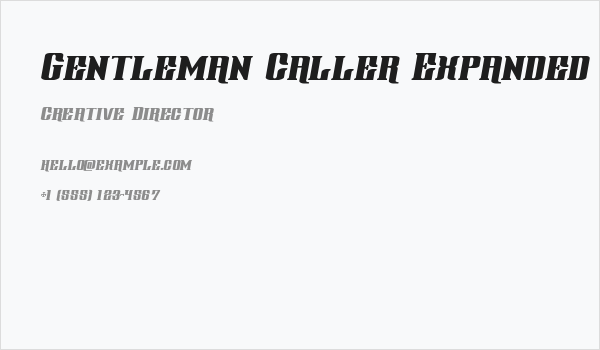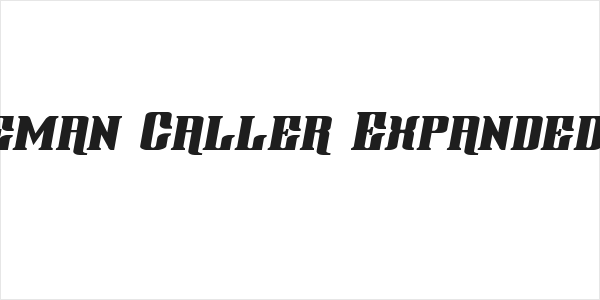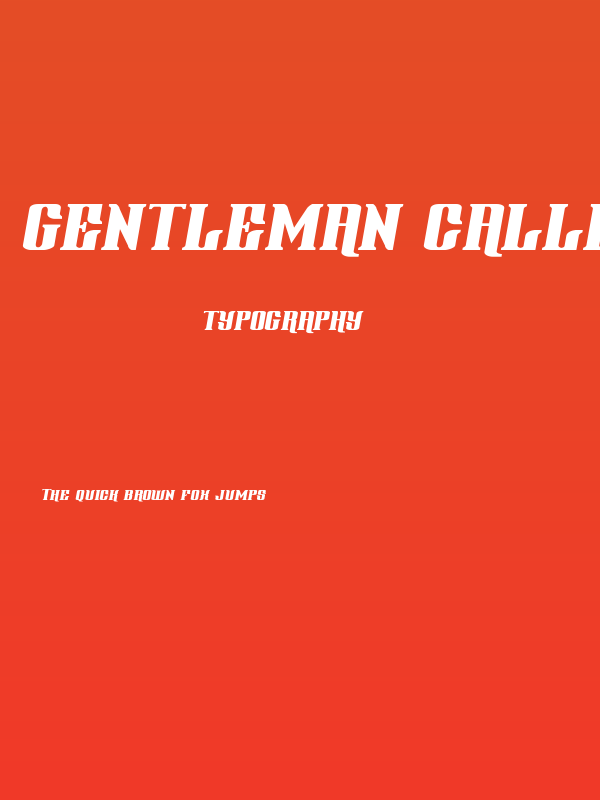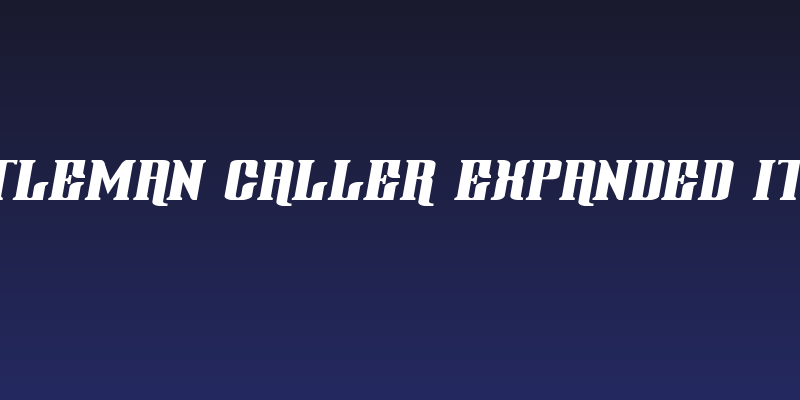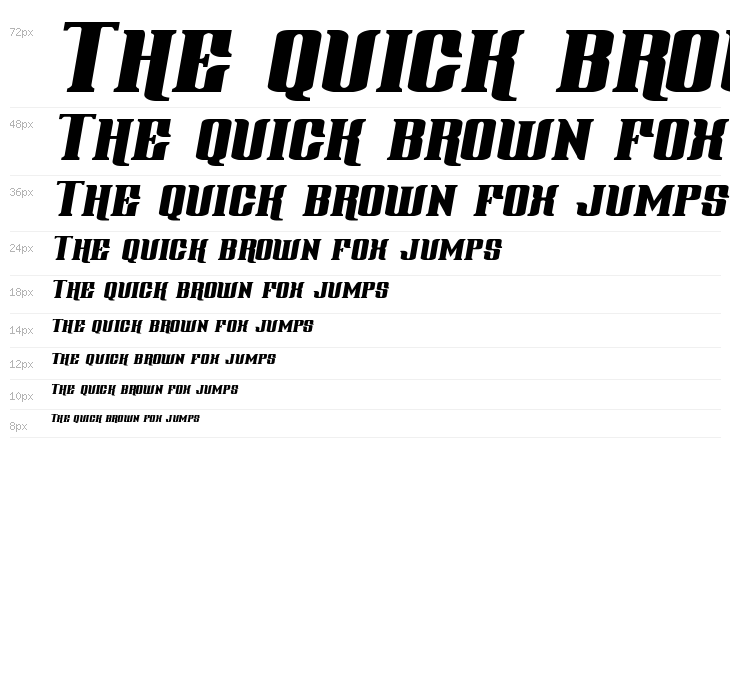
Gentleman Caller Expanded Italic Font
Gentleman Caller Expanded Italic Description
This font features a bold and dynamic style with an expanded and italicized form. The characters are designed with a strong presence, making them suitable for attention-grabbing headlines and titles. The uppercase and lowercase letters maintain a consistent slant, enhancing the italic effect. The numbers and special characters follow the same stylistic cues, ensuring uniformity across all glyphs. The font's design is reminiscent of vintage signage, with a modern twist that makes it versatile for various design projects.
| Proposed Projects | Ideal for posters, logos, branding, and any design that requires a bold statement. |